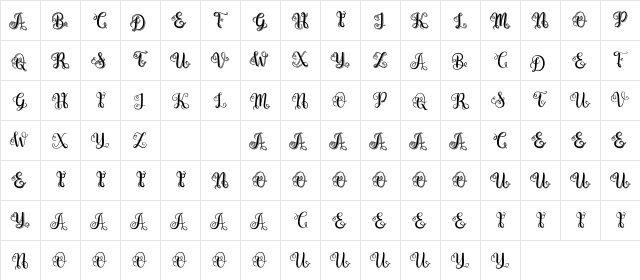
Swirly Letters Regular
Design Context for Swirly Letters Typeface
Swirly Letters brings ornamental detail and strong personality to headlines and identities, where visual impact matters more than quiet functionality.
Font Pairing: Pair with a clean neutral sans-serif for body copy to let Swirly Letters's character lead without overwhelming the composition.
Pro Tip: Use Swirly Letters exclusively at display sizes — it was designed to be seen, not read at length. Let a neutral companion handle body copy.